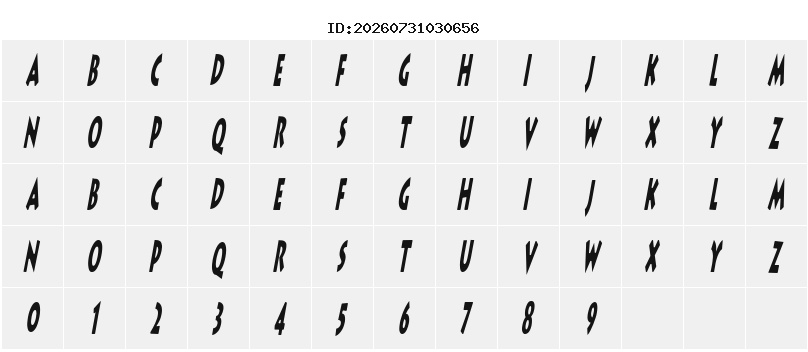
• Font Name: LithoComix
About LithoComix.ttf
LithoComix.ttf is a modern, elegant sans-serif font designed for ultimate readability and visual harmony. Perfect for branding, headlines, web design, and print materials.